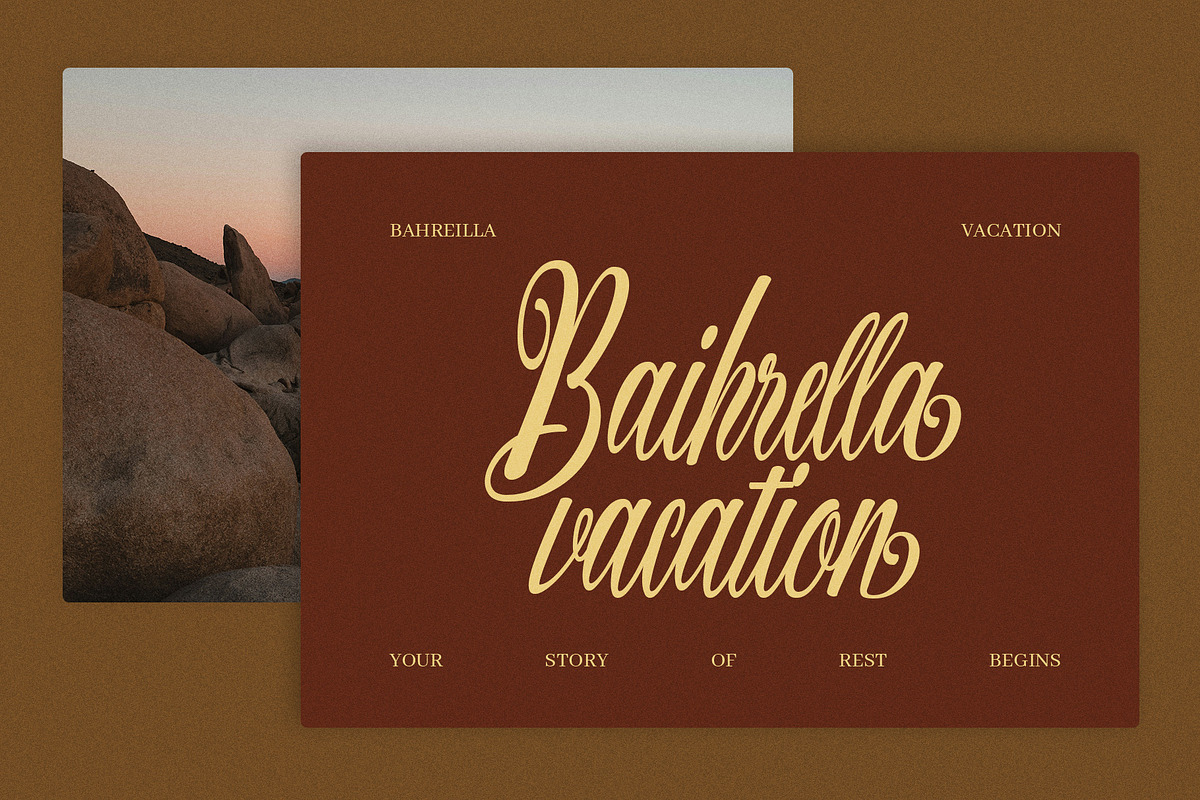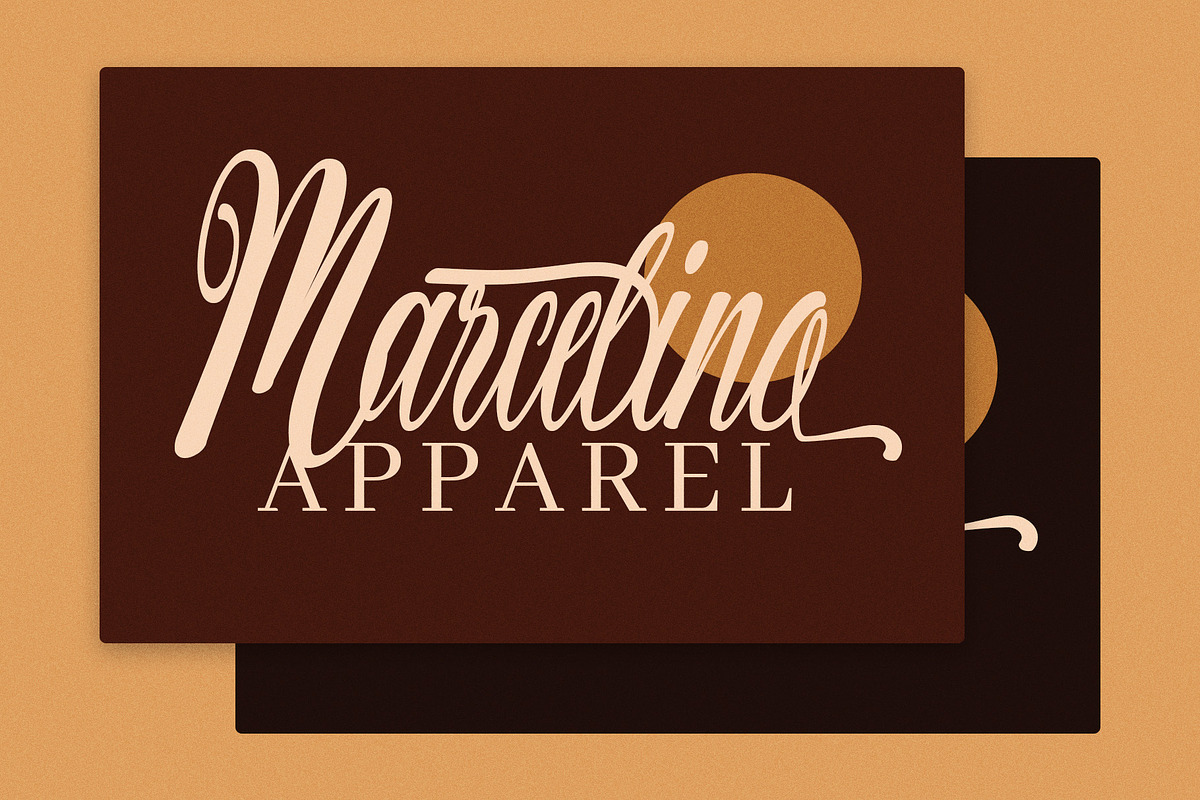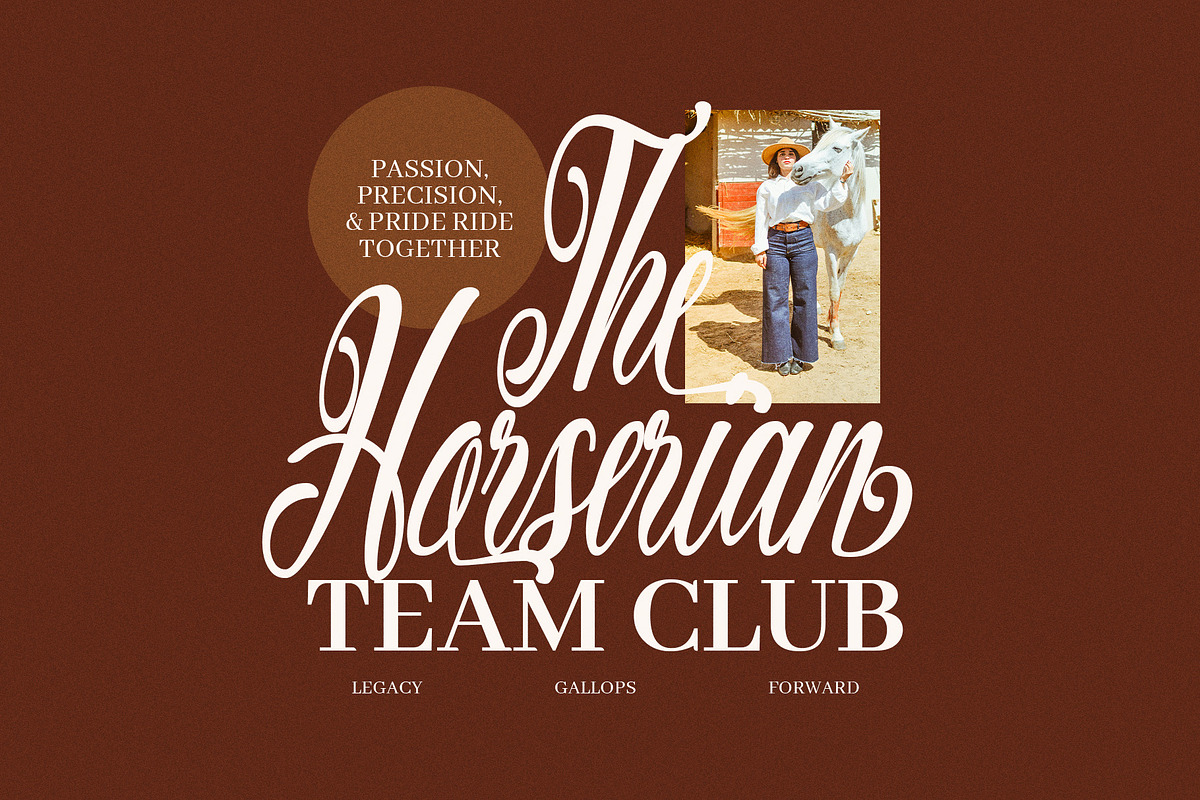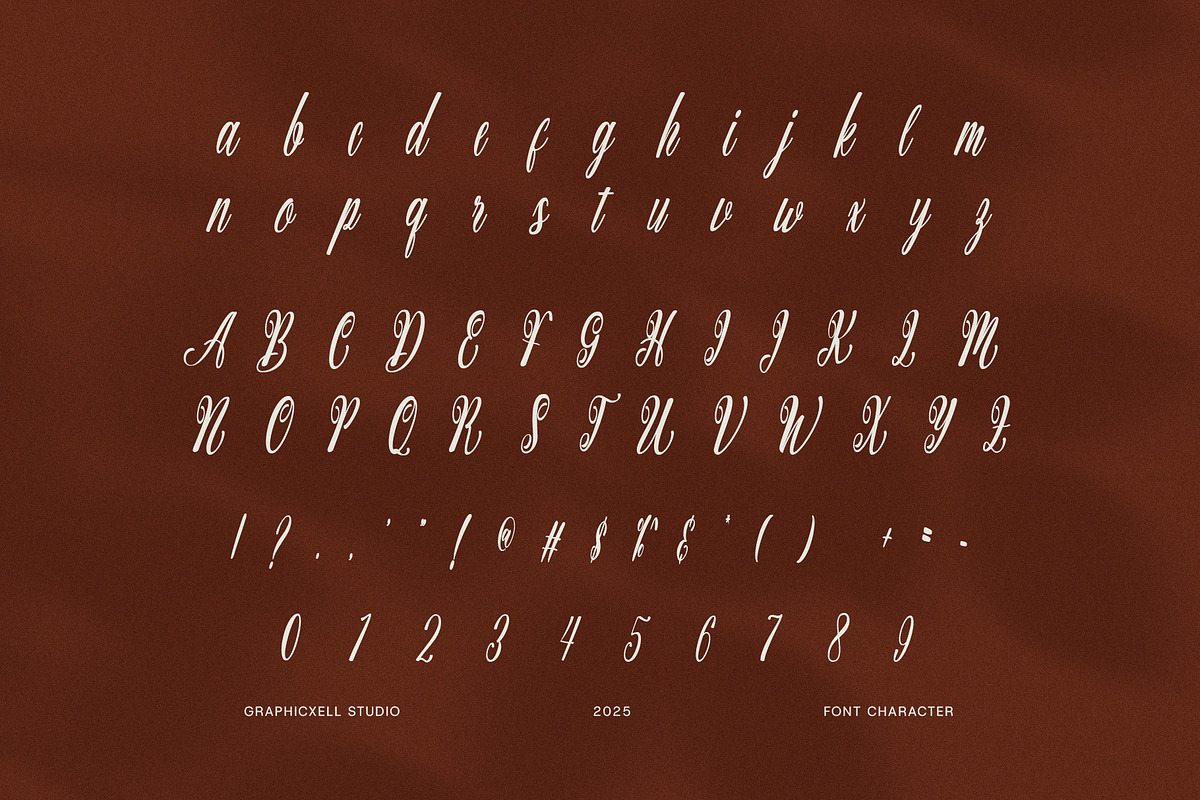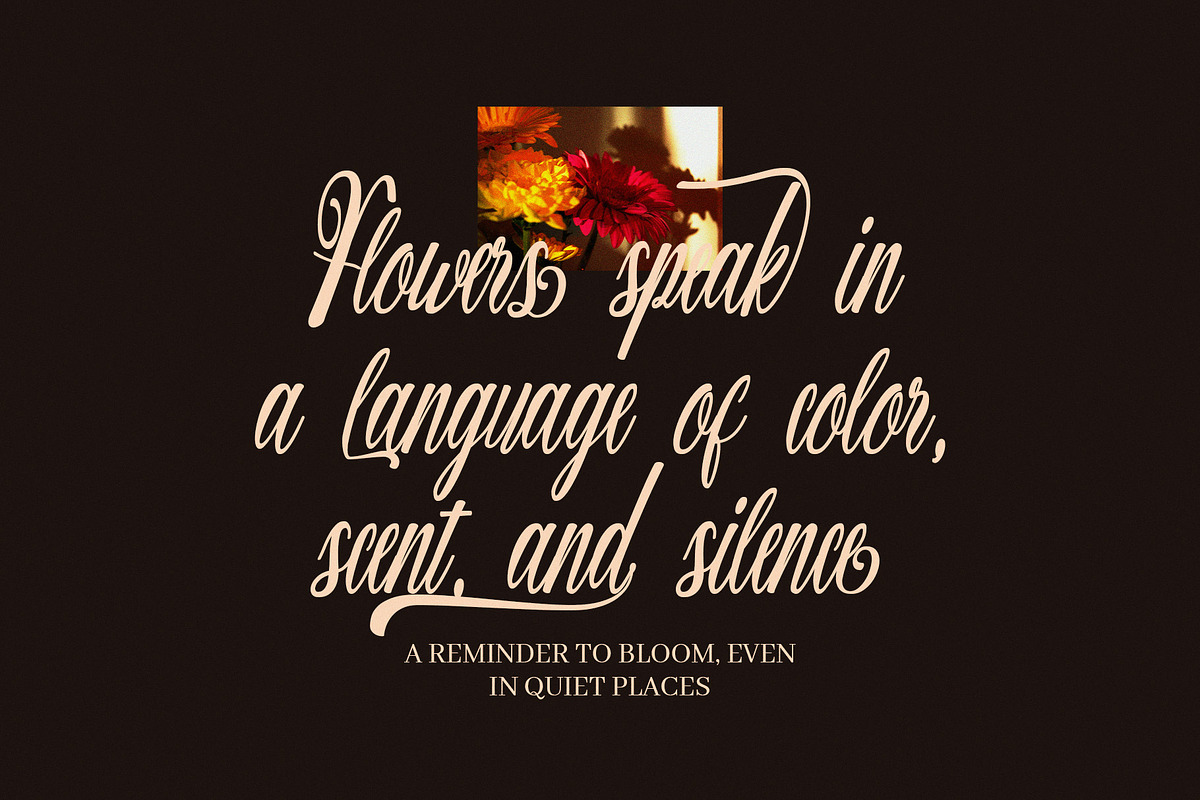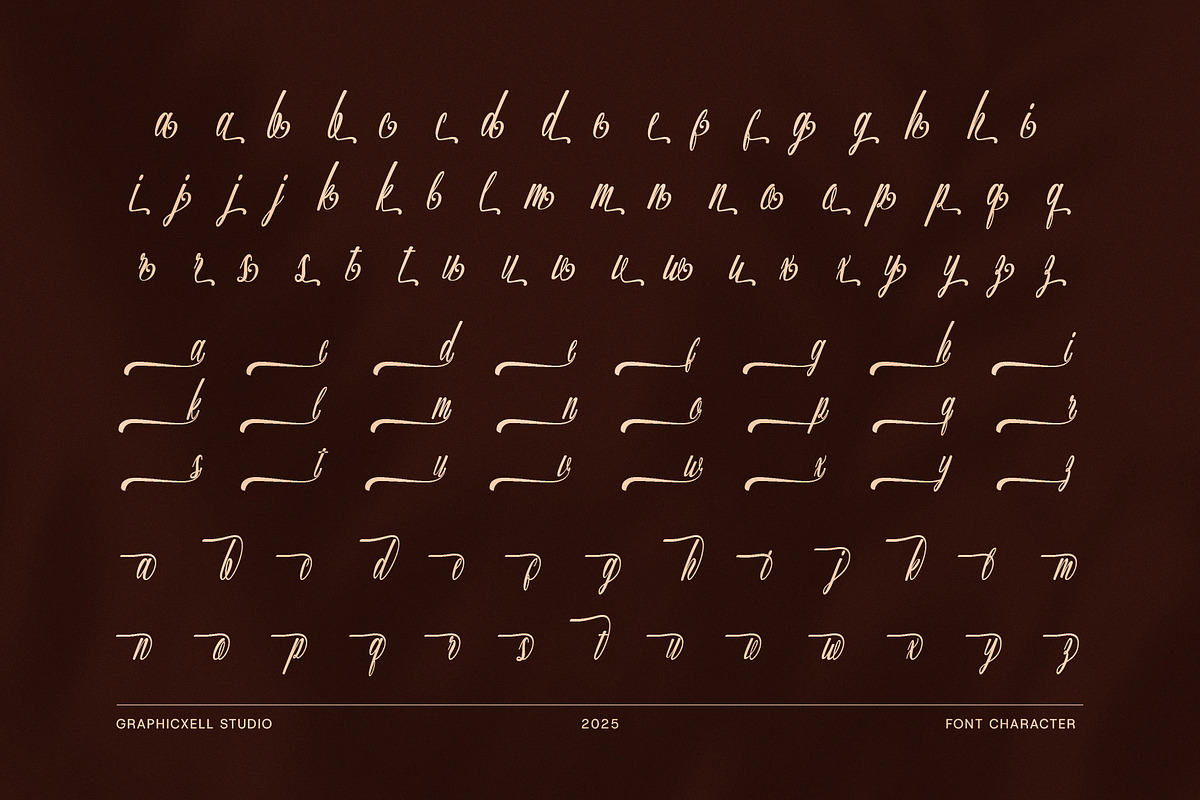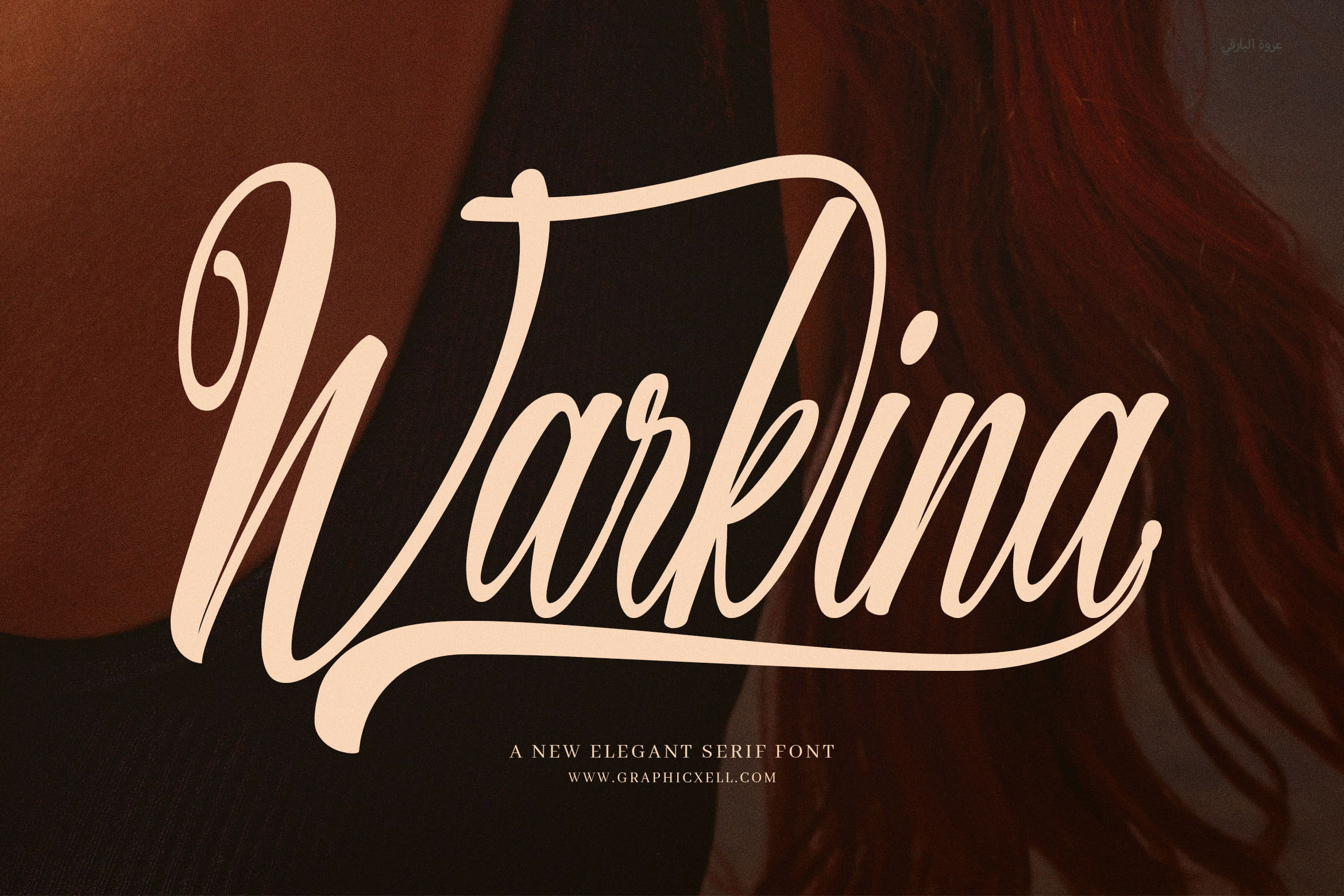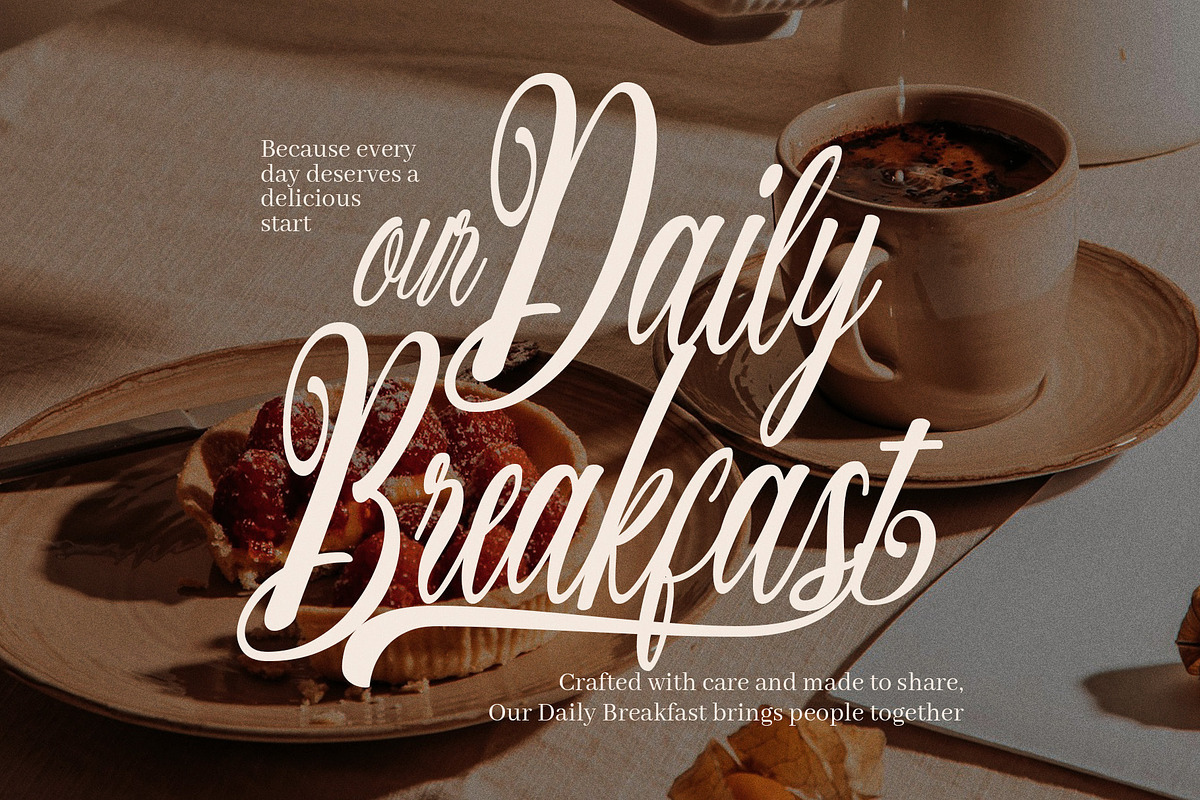
Warkina Script Font
Introducing Warkina Script Font, a stunning and refined typeface that blends timeless calligraphy with a modern edge. Designed with smooth curves and elegant strokes, this font offers a collection of unique alternates and ligatures to bring creativity and luxury to your designs.
Whether you're creating a brand identity, crafting a romantic wedding invitation, or designing a stylish logo, Warkina adds elegance and charm to every detail. With its graceful flow and versatile look, this script font is ideal for both print and digital use. From business cards to magazine covers, websites, social media graphics, posters, and album designs, this font adapts beautifully.
Moreover, Warkina includes a rich set of alternate characters and ligatures. These extras make it easy to personalize your work and give your typography a handwritten, artistic feel—perfect for boutique branding, advertisements, layouts, and Canva projects.
Elegant and classy calligraphy script
Includes alternates and ligatures for creative design
Great for branding, weddings, invitations, and logos
Works on digital and print platforms
With Warkina Script Font, your designs gain a professional and luxurious finish. It's the perfect choice for creatives who want to elevate their work with style, emotion, and charm.